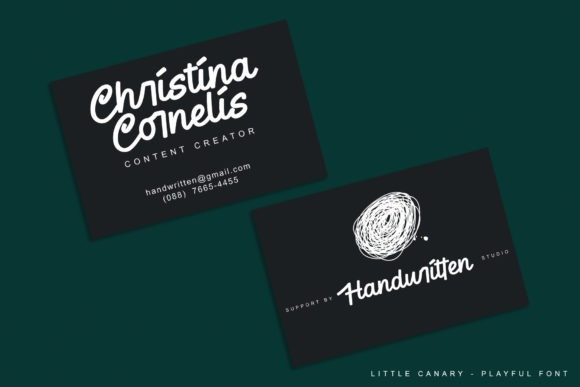
Little Canary Font
Little Canary Script Font is a delicate, elegant and flowing handwritten font. It has beautiful and well balanced characters and as a result, it matches a wide pool of designs. Add it to your most creative ideas and notice how it makes them come alive!